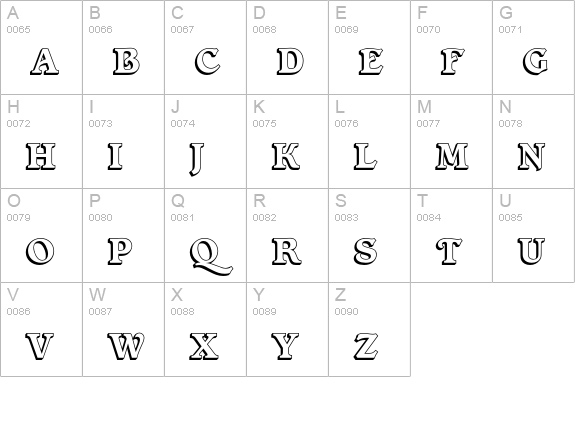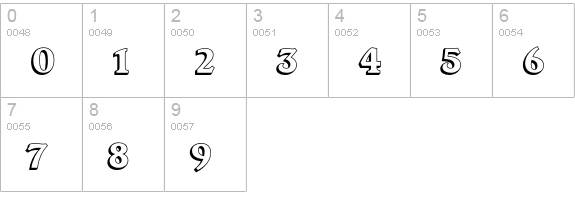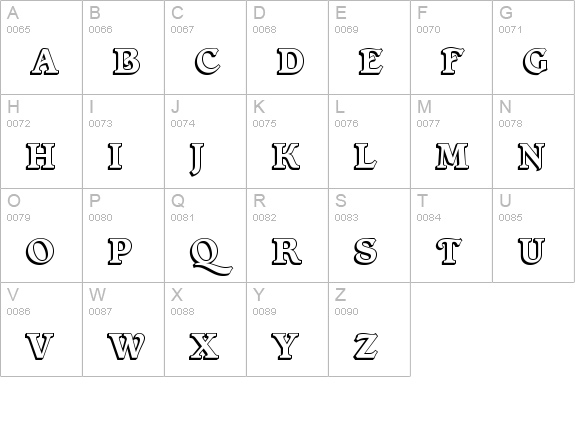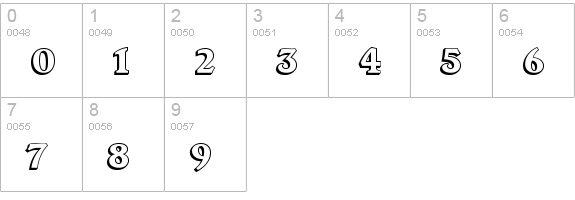
Forest Shaded Std Font Details
Forest Shaded Std font is a whimsical and playful typeface that perfectly captures the essence of a serene forest canopy. Its unique shading and organic shapes evoke a sense of nature and tranquility, making it an ideal choice for projects that require a touch of whimsy and charm. This free font is freely available to download at FontsMarket.com, allowing designers and creatives to easily access this delightful typeface for their projects. With its versatile design and charming aesthetic, Forest Shaded Std font is sure to add a touch of magic to any design endeavor.